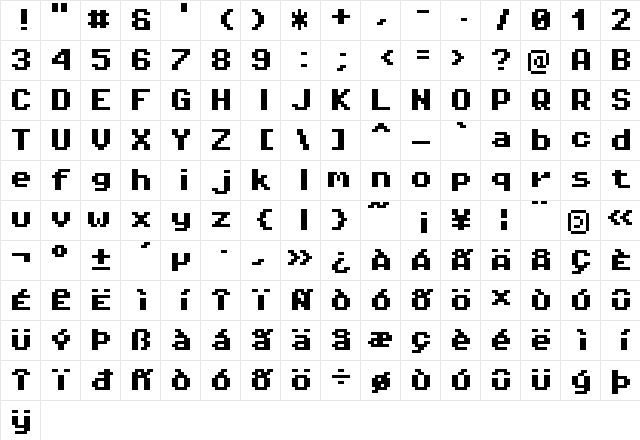
Pixel Operator Mono 8 Bold
Designer: Jayvee Enaguas (HarvettFox96)
Design Context for Pixel Operator Mono 8
Pixel Operator Mono 8 is rooted in pixel-grid construction, making it a natural fit for game UI, retro computing aesthetics, and digital nostalgia projects.
Pro Tip: Use Pixel Operator Mono 8 at sizes that align with its pixel grid for the sharpest rendering - scaling to non-integer multiples can introduce unwanted blur.